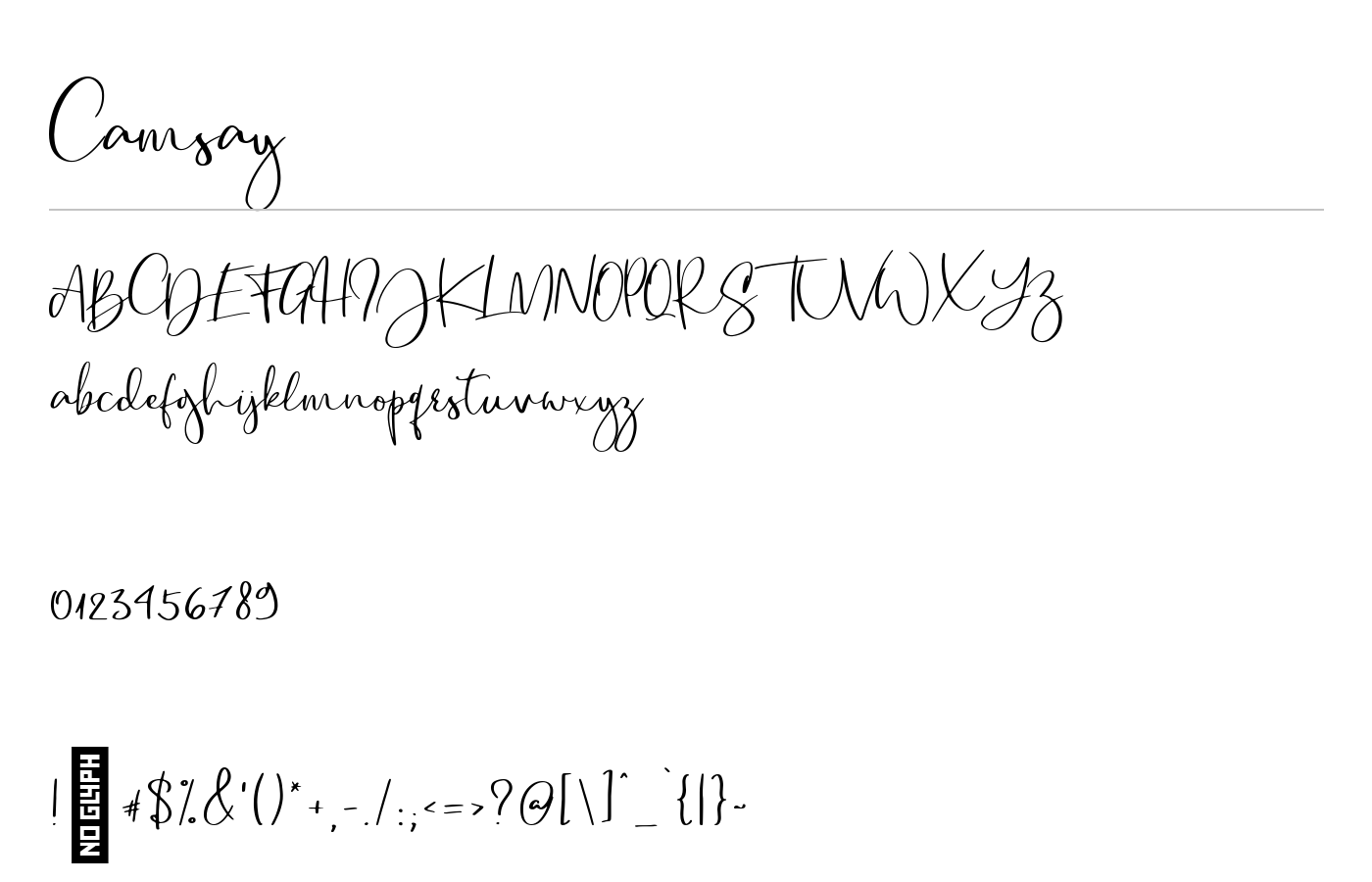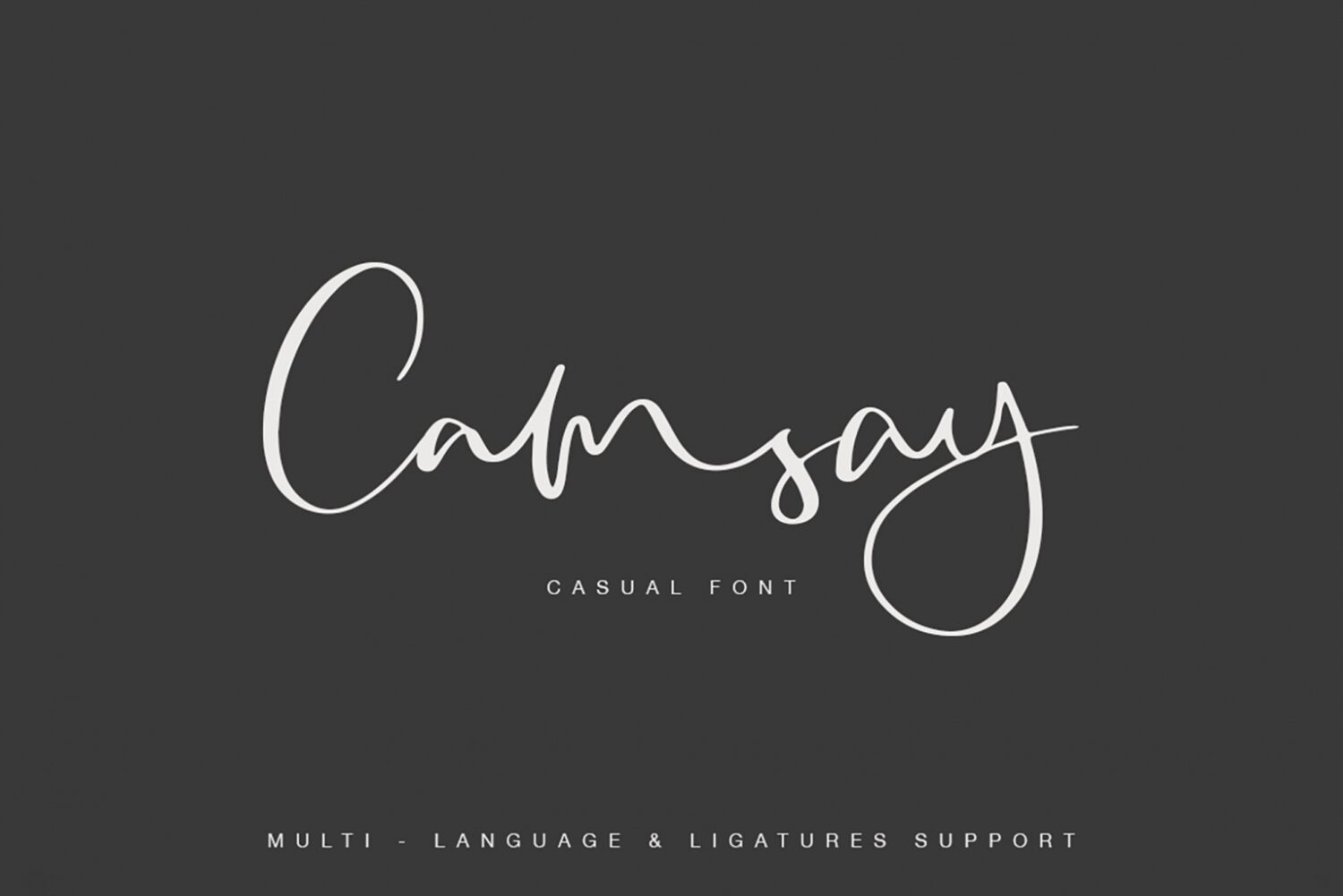
Camsay Script is a delicate and elegant handwritten font featuring thin, flowing strokes that create a graceful and airy feel. Its tall, slender letterforms with playful loops add a modern, friendly charm, making it perfect for wedding invitations, branding, and feminine designs. This font works best for headlines, logos, and decorative text where a personal, stylish touch is desired.
Camsay Script Font
About Camsay Script Font